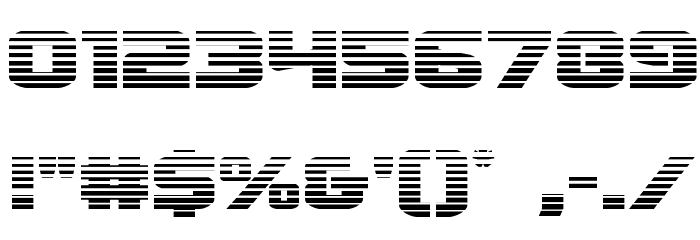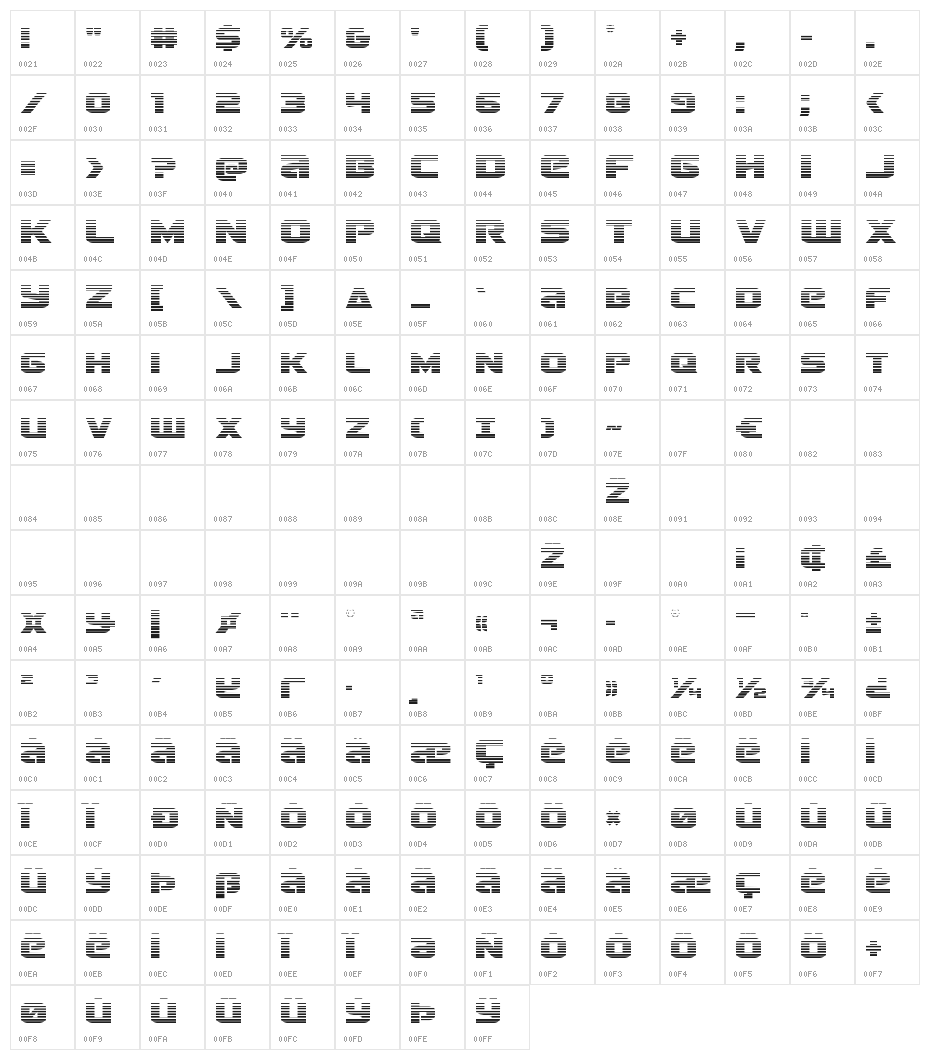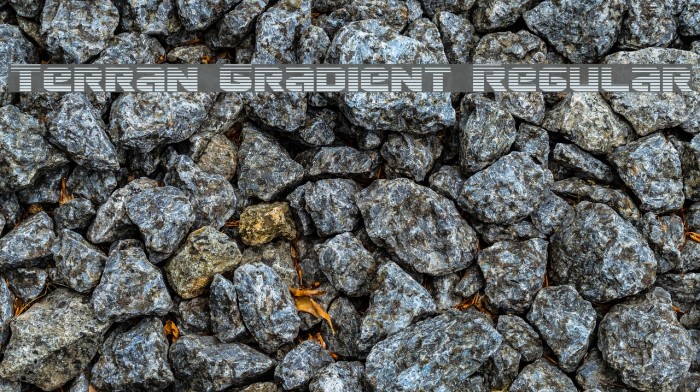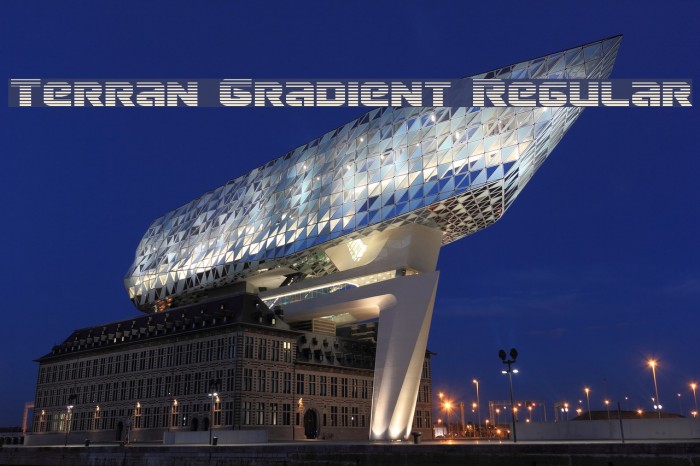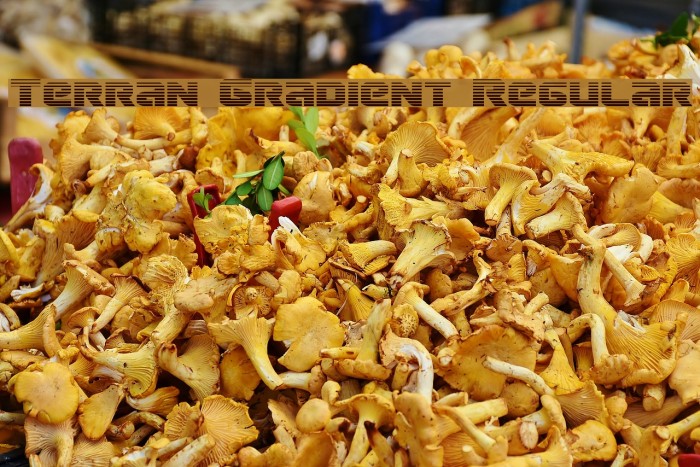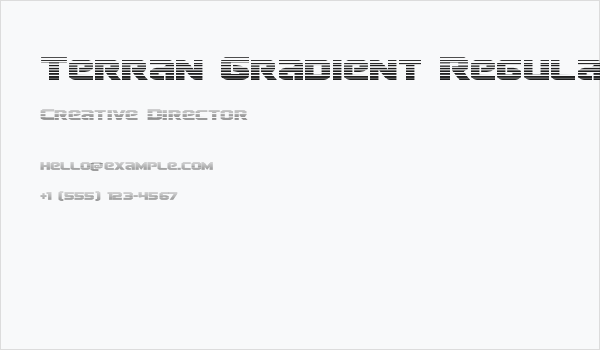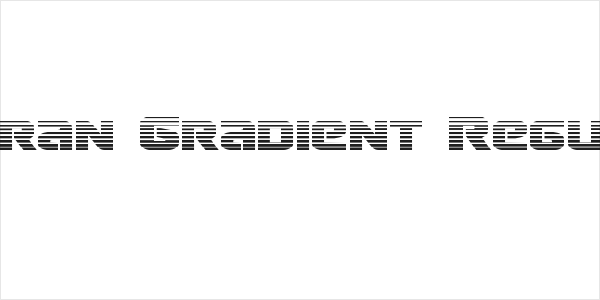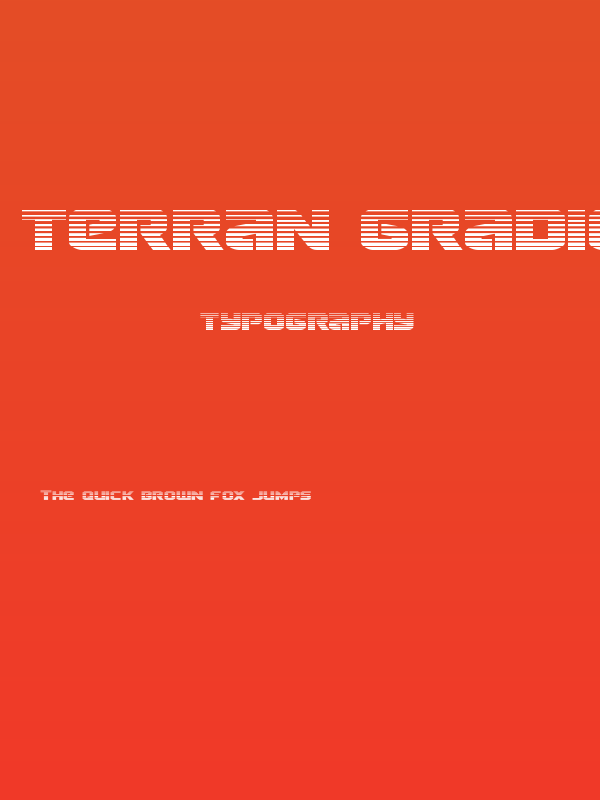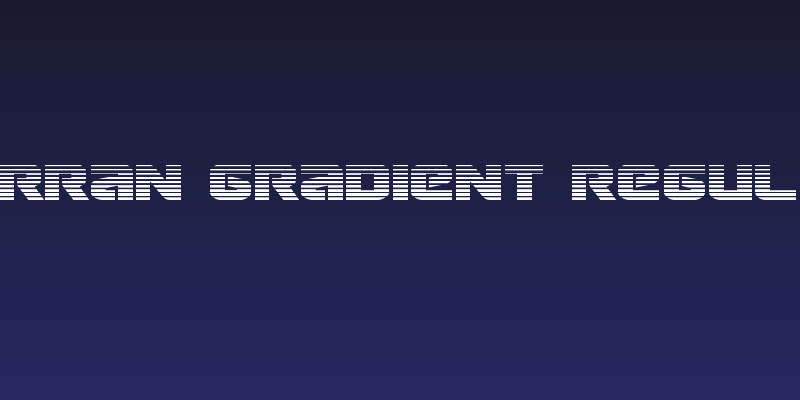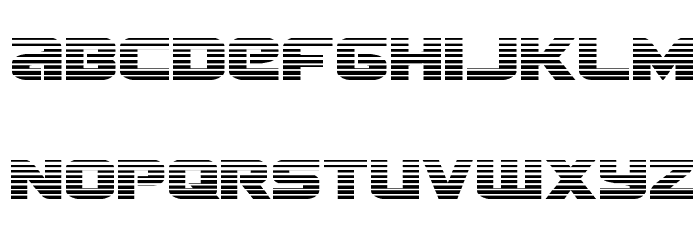
Terran Gradient Regular Font
Terran Gradient Regular Description
This font features a unique design with horizontal lines cutting through each character, creating a futuristic and digital appearance. The uppercase and lowercase letters, as well as numbers and special characters, maintain a consistent style with bold, geometric shapes. The horizontal lines give a sense of movement and energy, making it stand out in any design. The overall look is modern and tech-inspired, suitable for projects that require a distinctive and eye-catching typeface.
Proposed ProjectsIdeal for technology branding, sci-fi themed posters, video game titles, and digital media.